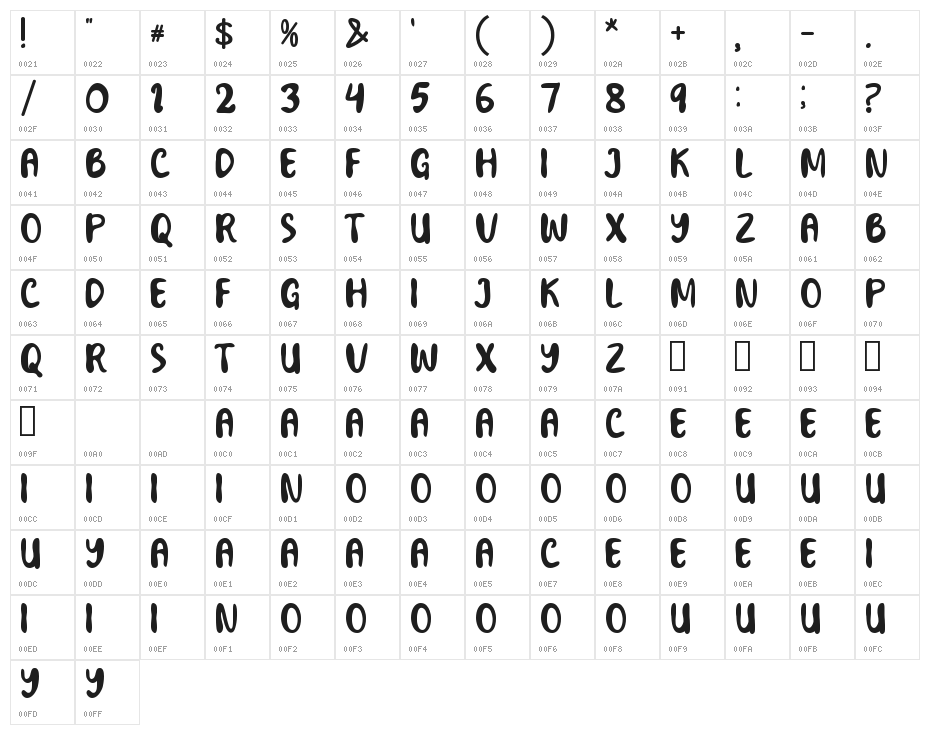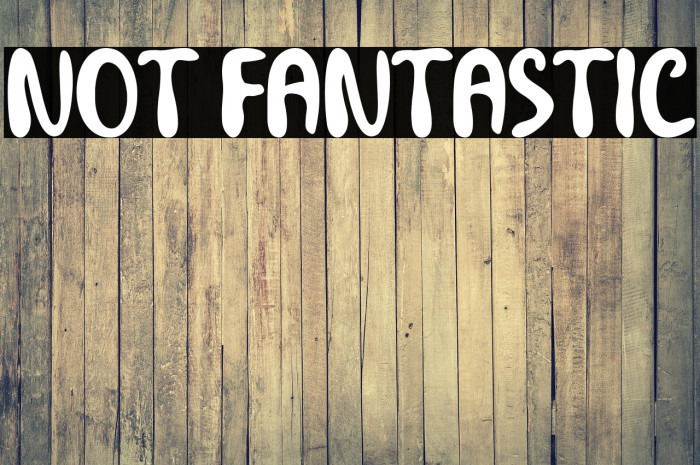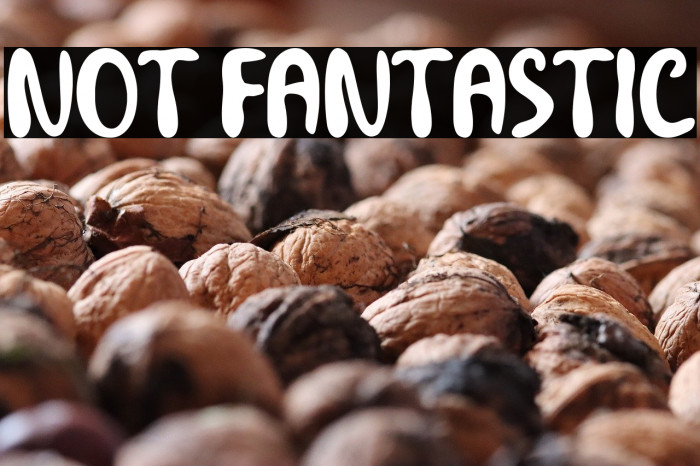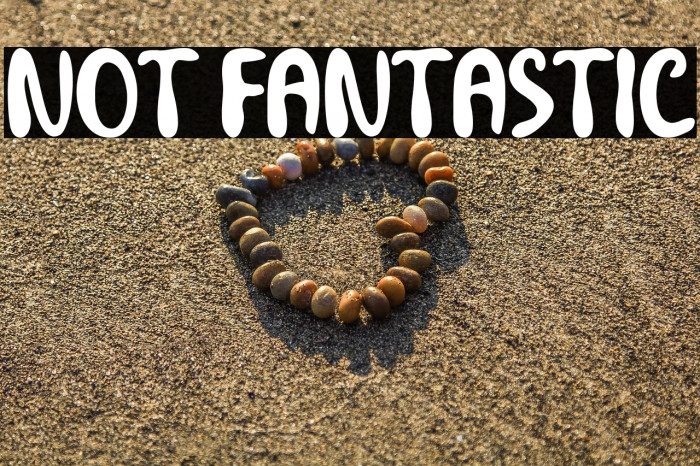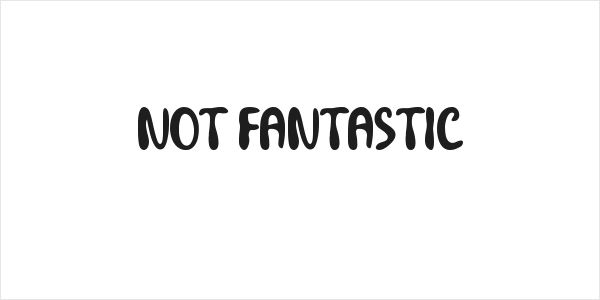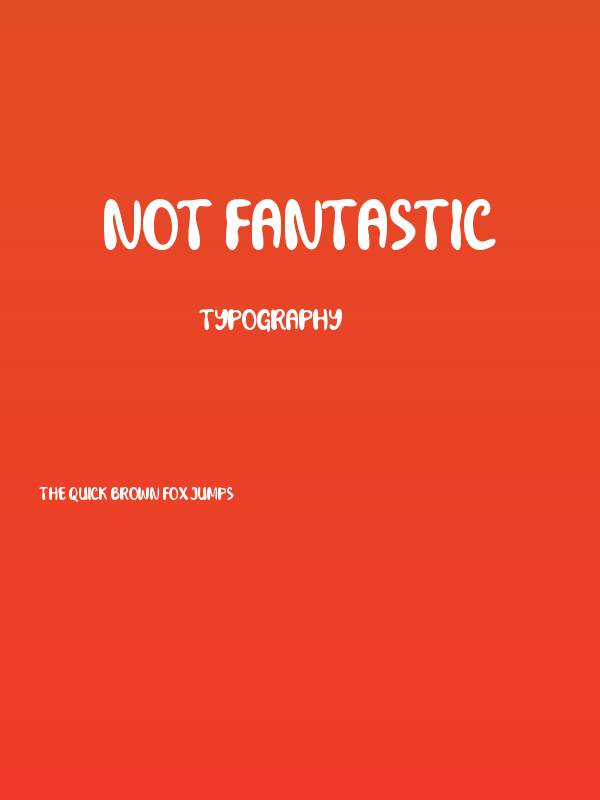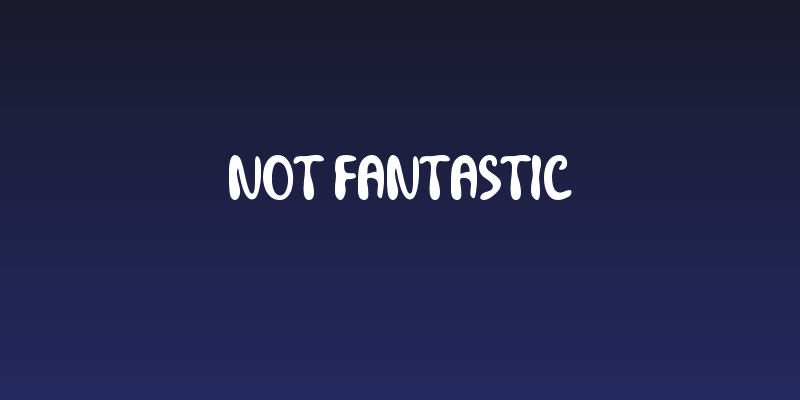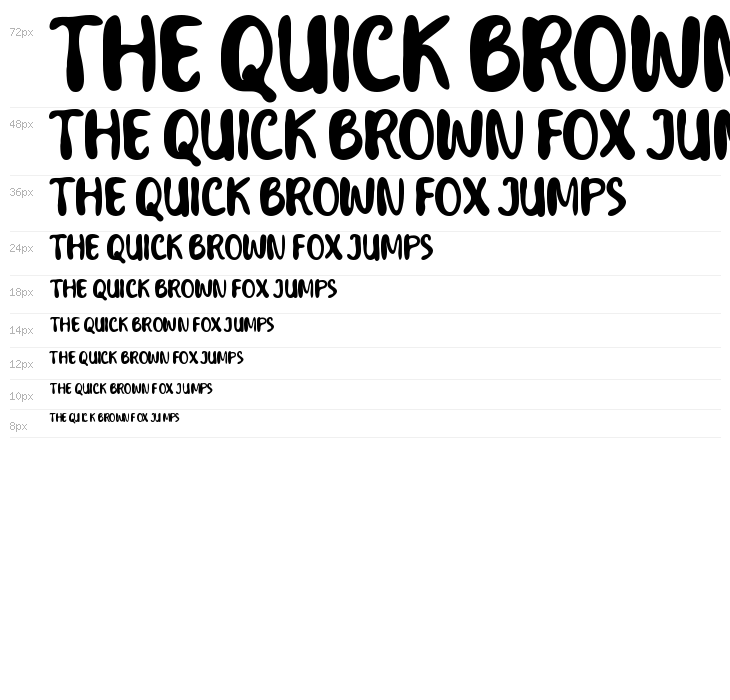
Not Fantastic Font
Not Fantastic Description
This playful and bold font features rounded, smooth edges and a handwritten style that exudes a sense of fun and creativity. The characters are thick and have a uniform width, giving them a strong presence on the page. The uppercase and lowercase letters maintain a consistent style, with slight variations that add to the font's charm. The numbers and special characters are equally bold and expressive, making them stand out in any design. The overall appearance is casual yet impactful, perfect for projects that require a touch of personality and flair.